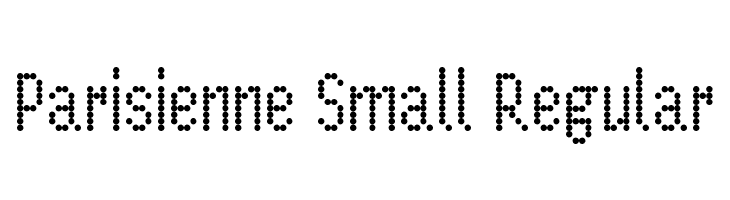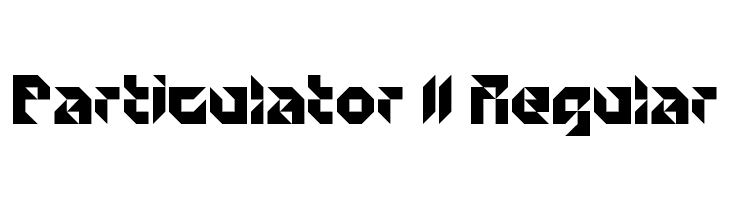
A dot matrix style font with a retro digital display aesthetic.
A bold, geometric font with sharp angles and a futuristic style.
A bold, geometric font with angular shapes and a futuristic style.
A bold, geometric font with sharp angles and a futuristic style.
A futuristic, segmented font with a digital clock-like appearance.
A bold, geometric font with a modern, futuristic style and rounded edges.
A bold, geometric font with a futuristic and edgy design.
A pixelated, retro-style font with a digital, geometric look.